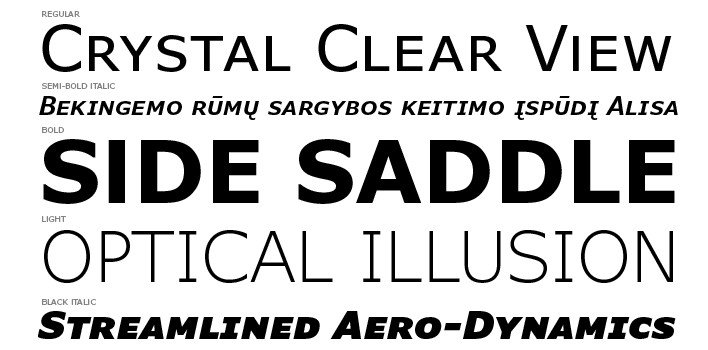
We are pleased to introduce the cool and beautiful sans serif typeface known as Verdana Cond Font. This font has gained significant popularity among great designs. It boasts unique readability features, making it perfect for all kinds of typographic, web, and graphic projects.
The typefaces with creative designs that will suitable and perfect typeface to utilized in t-shirt making, websites, and book writing. It is a great font to work with the combination of the font.
View Of Verdana Cond Font
Now, the time is came to view the sample of great typeface that is perfect to work with blessed script font. Below, we shared an image that contains the glyphs and characters of this amazing font which creates best designs in Adobe photoshop and Adobe Illustrator.
Verdana Cond Font View
This is outclassed sans serif typeface, which is a great font to work with the combination of denmark handwritten font. It is a great font to make postcards, flyers, catalogs, WordPress designs, landing pages, websites, apps designs, UI UX, and cool t-shirts etc.
Designer Matthew Carter